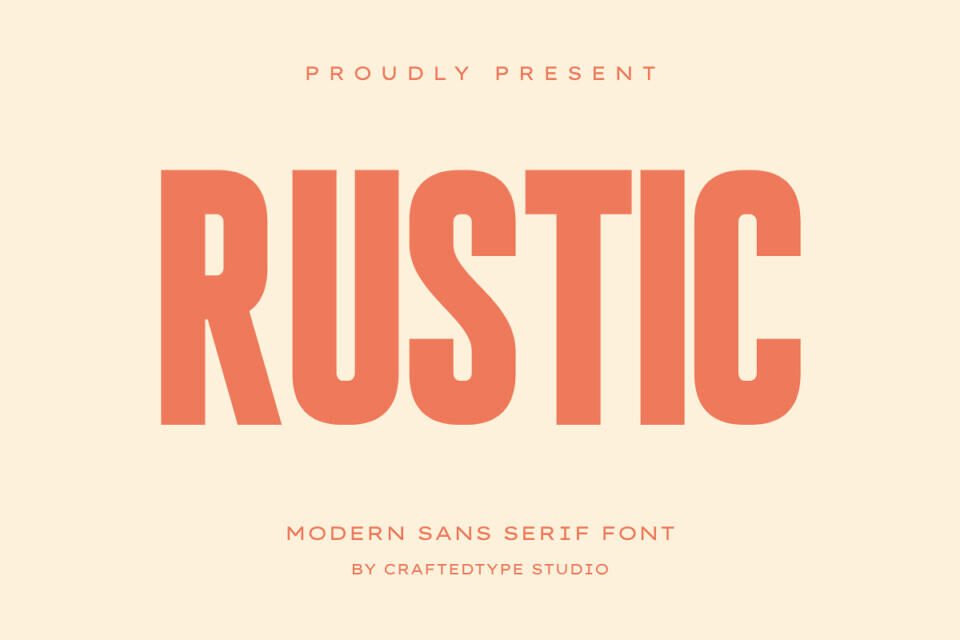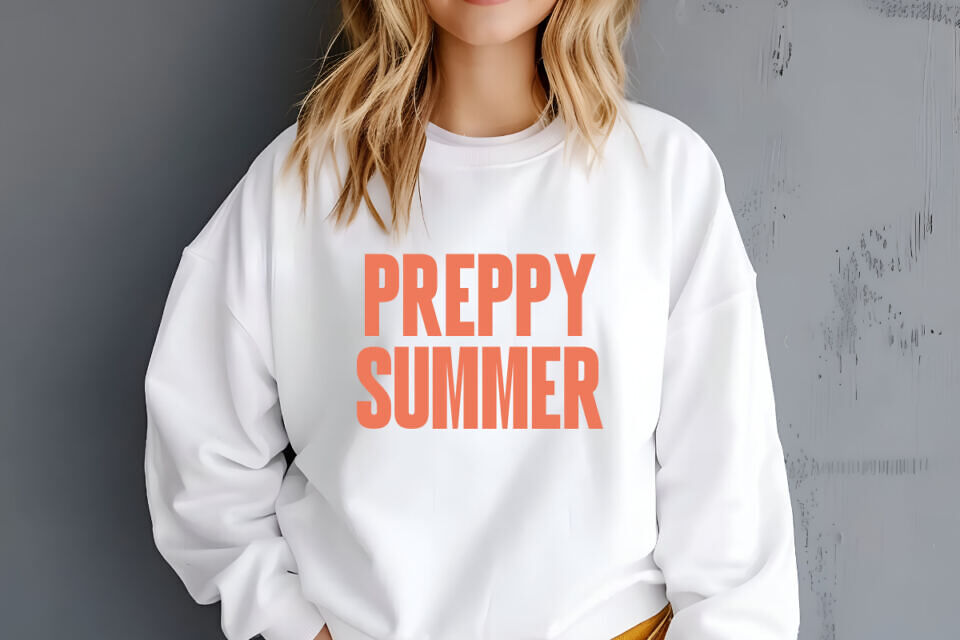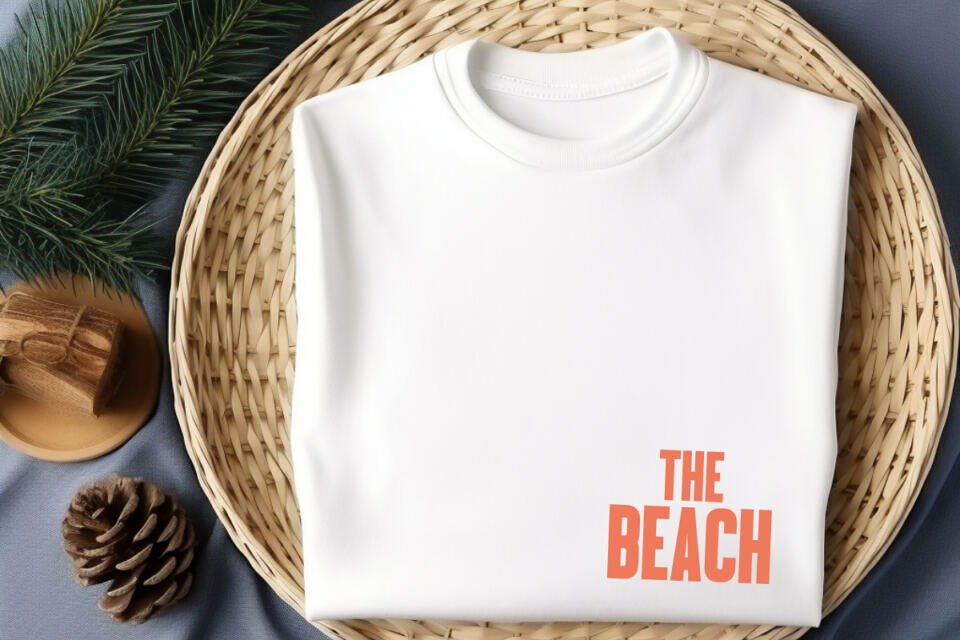
Rustic Font
Rustic is a modern sans serif font that features a bold and condensed aesthetic, making it a powerhouse for high-impact designs. This versatile typeface is meticulously crafted for professional graphic designers and craft enthusiasts who need a clean yet commanding look for their projects.
It is an ideal choice for the Print on Demand (POD) market, working perfectly for t-shirt designs, hoodies, mugs, and posters. Its sleek and narrow construction also makes it a favorite for logo branding, social media headlines, and modern packaging.